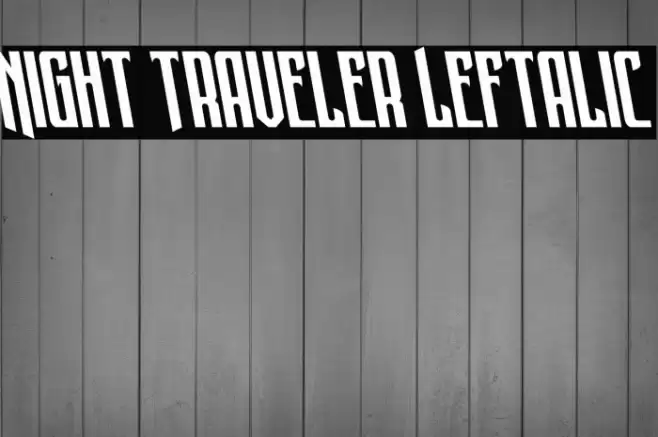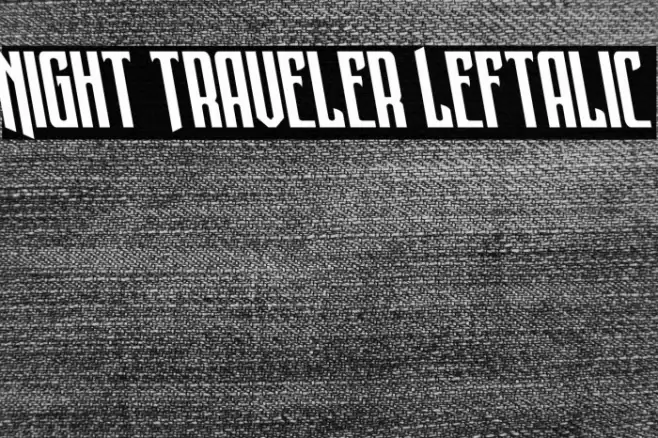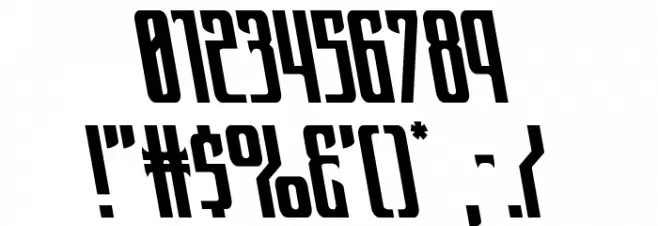
Night Traveler Leftalic Font
Night Traveler Leftalic Description
This font features a bold and dynamic style with a distinct leftward slant, giving it a sense of movement and energy. The characters are tall and narrow, with sharp angles and clean lines that create a modern and edgy appearance. The uppercase and lowercase letters maintain consistent height and width, contributing to a cohesive look. Numbers and special characters follow the same stylistic approach, ensuring uniformity across all glyphs. The font's unique slant and boldness make it stand out, ideal for projects that require a strong visual impact.
A bold, left-leaning font with sharp angles and a modern, dynamic style from Uncategorized fonts.
- Proposed Projects: Ideal for posters, album covers, branding, and any design needing a bold, energetic look.
- Character Spacing: Tight